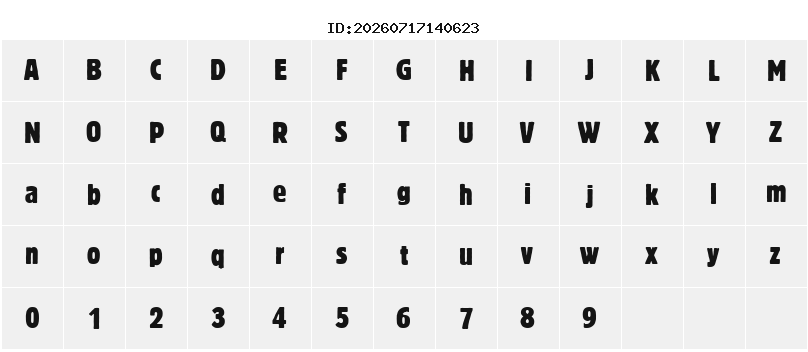
BlockCondensed Preview
• Font Name: BlockCondensed
• Font ID: Altsys Fontographer 3.5 BlockCondensed Regular
• Full Font Name: BlockCondensed Regular
• Version: Altsys Fontographer 3.5 7/7/93
• PostScript Name: BlockCondensed Regular
• Character Count: 247
About BlockCondensed.ttf
BlockCondensed.ttf is a modern, elegant sans-serif font designed for ultimate readability and visual harmony. Perfect for branding, headlines, web design, and print materials.